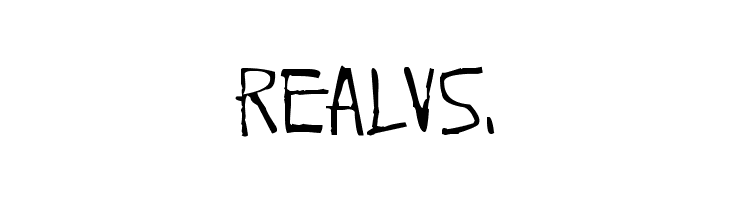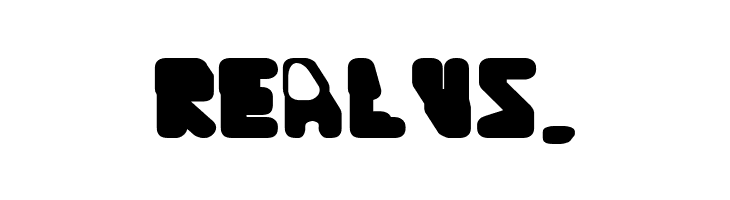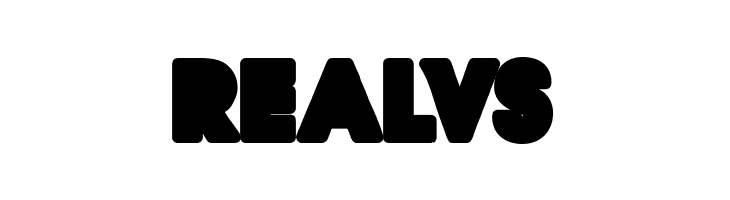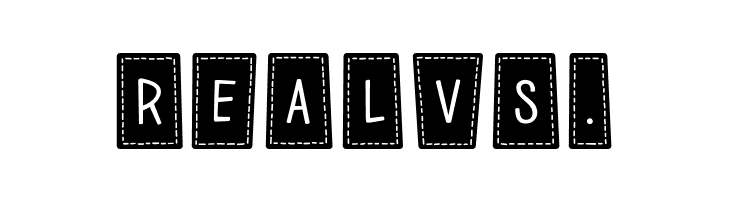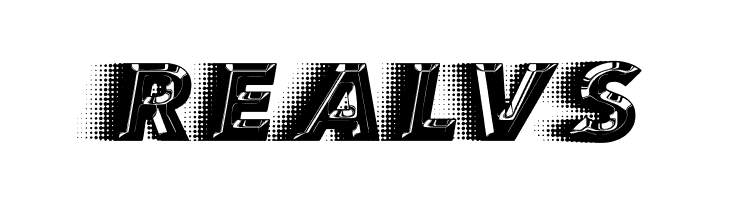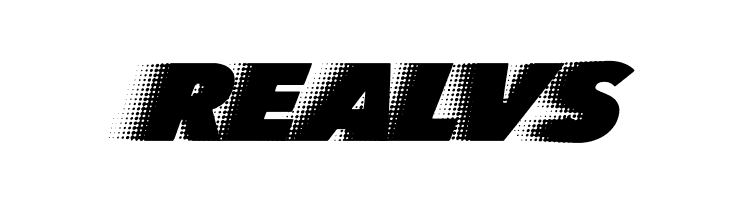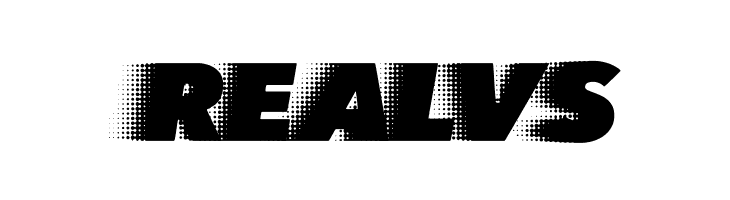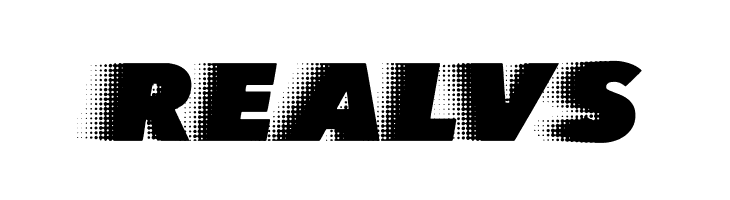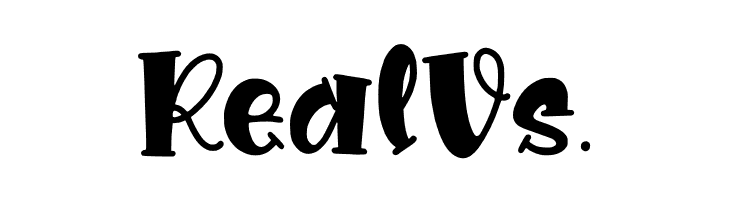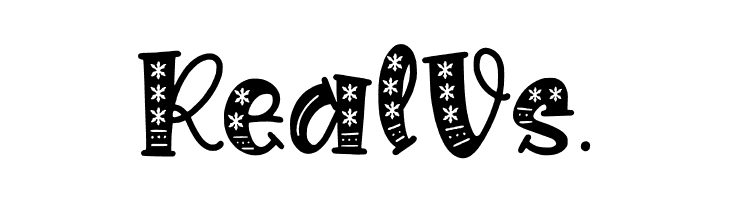
A minimalist, geometric font with thin, elongated strokes and a modern aesthetic.
An ornate, decorative font with intricate swirls and embellishments.
A dual-style font combining geometric uppercase letters with whimsical, flowing numerals and symbols.
A bold, striped stencil-like font with a modern, geometric design.
A bold, 3D block font with shadow effects and a geometric style.
A playful, hand-drawn font with a whimsical and informal style.
A playful and elegant handwritten script font with a whimsical flair.
A bold, geometric font with unique circular motifs for a modern and playful look.
A futuristic, geometric font with layered lines and bold, angular shapes.
A bold, geometric font with a modern, tech-inspired style.
A modern script font with elegant, flowing curves and decorative elements.
A bold, graffiti-inspired font with a rugged, hand-drawn appearance.
A bold, distressed font with a rugged, vintage appearance.
A bold, bone-like font with a jagged, textured design ideal for spooky themes.
An ornate, decorative font with elaborate swirls and a calligraphic style.
A bold, hand-drawn font with textured, sketch-like characters.
A playful, handwritten font with uneven strokes and a casual, energetic style.
Bold, halftone-patterned font with a retro, comic book style.
A bold, italic font with a halftone pattern, exuding speed and energy.